Typography breathes life into design, and few styles bring elegance and personality to a project, like cursive fonts. Imagine the graceful curve of letters dancing across an invitation, or the touch of personality in a company logo. Cursive fonts have long been a favorite for their charm and versatility.
Whether you're working on party invitations, branding collateral or even captions for social media graphics, choosing the right cursive font can transform an average graphic design into something truly captivating. This article explores what cursive fonts are, their diverse applications and how to choose them wisely for your projects.
What are cursive fonts?
Cursive fonts mimic handwriting with flowing, connected strokes. They are reminiscent of the penmanship taught in early education, but modern digitization has allowed these fonts to evolve into countless styles. Some are elegant and calligraphic, like those you might use for formal wedding invitations. Others are playful or relaxed, perfect for branding a café or crafting a greeting card.
The most notable attribute of cursive fonts is their personality. They provide an organic, human-like quality to designs that’s hard to replicate with other font styles, such as sans-serif or script fonts. This characteristic makes them suitable for projects that require creativity, elegance or intimacy.
That said, not all cursive fonts are created equal. Some are designed for readability and versatile applications, while others are more decorative and work best in specific scenarios. Knowing the difference can save you time and ensure your design communicates effectively.
12 cursive fonts and when to use them
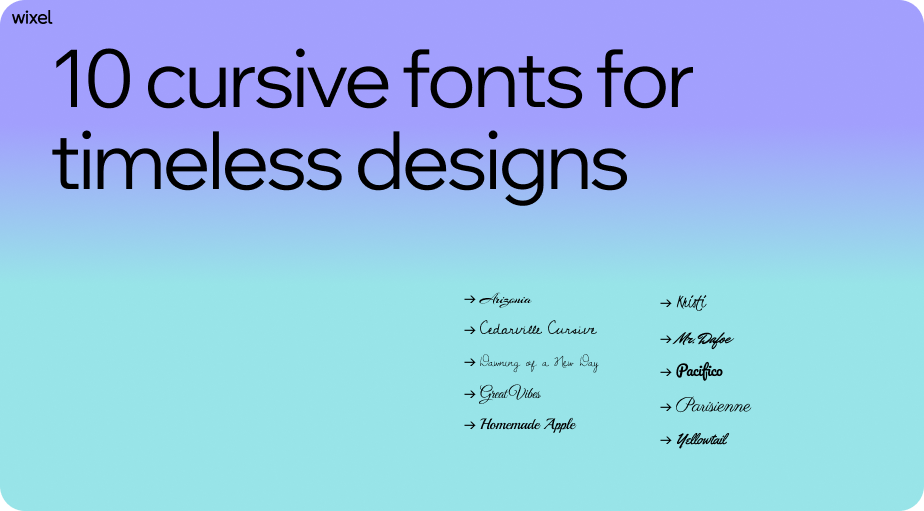
01. Arizonia
Arizonia is a casual yet elegant script typeface that draws inspiration from various calligraphic styles. It features smooth, flowing lines and a natural handwritten quality, giving it a warm and approachable feel. The thin strokes and graceful curves create a refined look that's perfect for adding a personal, heartfelt touch to your designs. Arizonia’s versatility makes it a great choice for wedding invitations, logo designs, greeting cards and lifestyle branding. Its stylish yet legible design ensures it works well for both digital and print applications without losing its distinct character.
Best for: Romantic wedding suites, signature-style logos, heartfelt quotes, elegant packaging designs and timeless blog headers.
02. Cedarville Cursive
Cedarville Cursive is a charming and playful handwritten font that exudes a personal, homemade feel. With its irregular strokes and naturally uneven lines, it creates the impression of authentic penmanship, making it wonderfully relatable and warm. This font brings a sense of informality and approachability, perfect for designs that aim to feel human and heartfelt. Cedarville Cursive’s delightful balance of whimsy and readability makes it suitable for projects that need a touch of personality and charm.
Best for: Journaling-themed designs, greeting cards, handwritten notes, DIY project labels and casual blog headers.
03. Dawning of a New Day
Dawning of a New Day is a delicate and charming handwritten script that captures the essence of simplicity and warmth. Its thin, slightly uneven strokes create an organic and natural feel, reminiscent of personal notes and heartfelt letters. This font adds a touch of sincerity and nostalgia to any design, making it ideal for projects with a personal or emotional theme. Its understated elegance ensures it complements a wide range of styles without overwhelming the composition.
Best for: Personal stationery, handwritten-style logos, heartfelt greeting cards, sentimental quotes, boutique branding and nostalgic social media graphics.
04. Great Vibes
Great Vibes is an elegant and flowing script typeface that exudes sophistication and charm. Its sweeping curves and balanced letterforms create a harmonious rhythm, making it visually captivating while remaining highly readable. Great Vibes brings a sense of grace and refinement to any project, effortlessly elevating its aesthetic. With its versatile design, this font is a perfect fit for formal occasions and lends a timeless quality to various creative works.
Can I combine multiple cursive fonts in one design?
It’s generally not recommended. Combining multiple cursive fonts can cause visual clutter and confusion. Pair one cursive font with a contrasting serif or sans-serif font for balance.
What are some of the most popular cursive fonts?
Dancing script: known for its playful nature and bouncing letters.
Pacifico: a fun brush font inspired by American surf culture.
Great Vibes: a looping but elegant script.